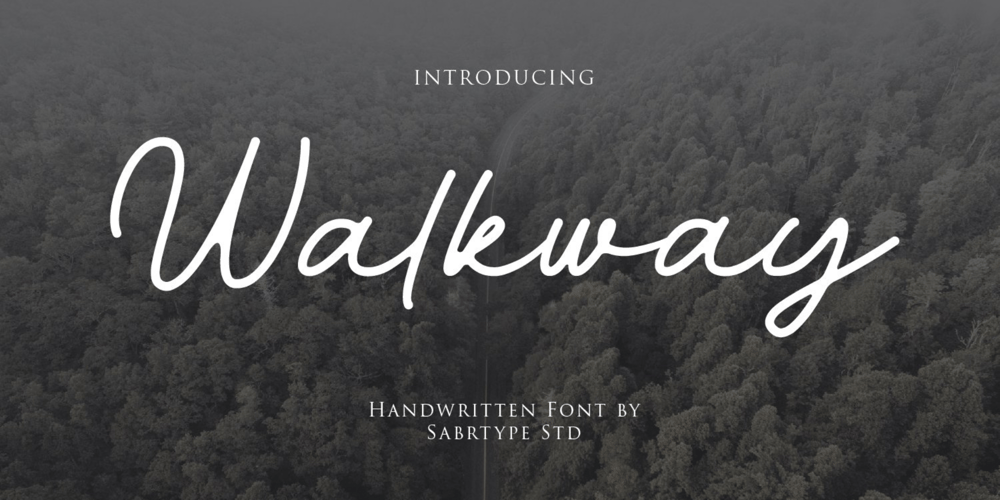
Walkway
Walkway font
Walkway Font Family was designed by Irpan Maulana and published by Sabrcreative. Walkway contains 1 styles and family package options. Discover the elegance of Walkway Font, a stunning handwritten signature script with a natural flow. Whether you’re a photographer, brand designer, or simply looking to add a touch of sophistication to your projects, Walkway Font is the perfect choice. It is versatile and can be used for various purposes such as watermarks, social media posts, advertisements, logos and branding, invitations, product designs, labels, stationery, wedding designs, and product packaging. With its full set of alternate characters, Walkway Regular offers endless creative possibilities. As a bonus, you’ll also receive the Walkway Bonus, which includes ornamental vector graphics to enhance your designs further.This font provides multilingual support, catering to a wide range of languages including Afrikaans, Albanian, Catalan, Danish, Dutch, English, Icelandic, Italian, Spanish, Portuguese, German, Swedish, Norwegian, Polish, Indonesian, Zulu, and more. Its extensive language support ensures that you can communicate your message effectively to diverse audiences.